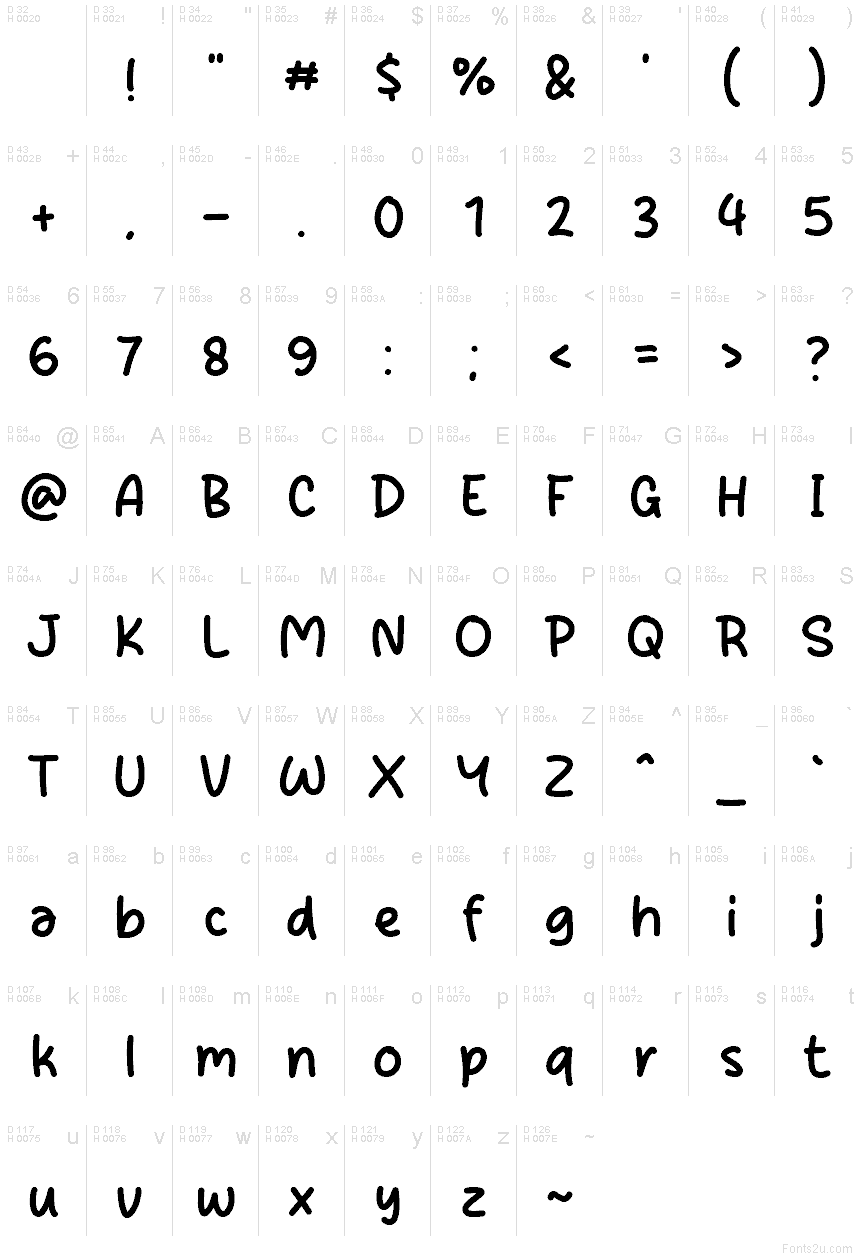
Sugar Crush
Sugar Crush font is a stylish handwritten creation by Origin Type, featuring a casual and friendly style. With a modern aesthetic and approachable tone, this font combines an artistic feel with professionalism in the best possible way. Large or small projects will bring out its most delightful traits, almost immediately captivating the eyes of its viewers.
This free handwritten font makes an excellent candidate for logo design, signage, invitations, packaging design of all sorts, posters, flyers, and much more. It can also be incredibly useful when designing cards for several occasions including birthdays or weddings.